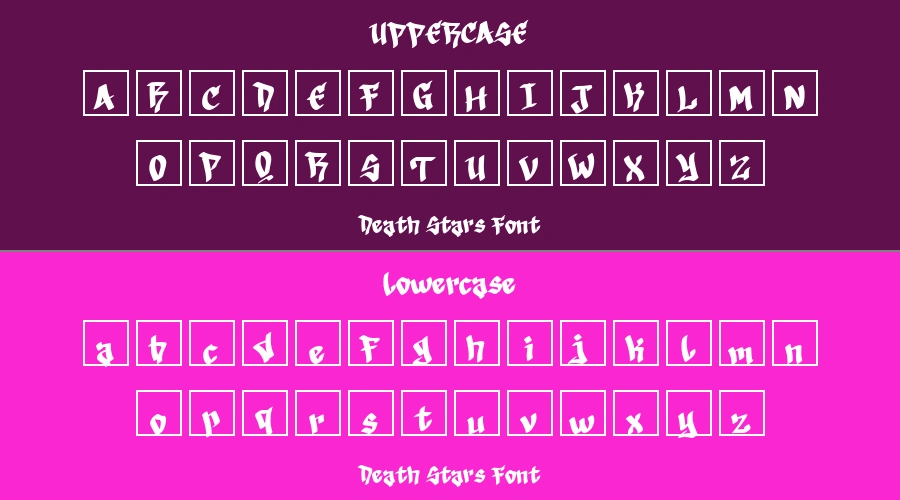
About Death Stars Font
Death Stars Font stands out for its distinctive combination of concave curves and professional finish. Ideal for merchandise graphics, it provides the authenticity and creative potential that professional projects demand. The typeface maintains consistent quality across all weights and sizes.
Key features include refined hand-drawn quality and practical swash characters, enhancing typographic expression. In historical documents applications, Death Stars Font demonstrates exceptional personality transfer. The tail length and creative expression contribute to its distinctive character and professional appeal.